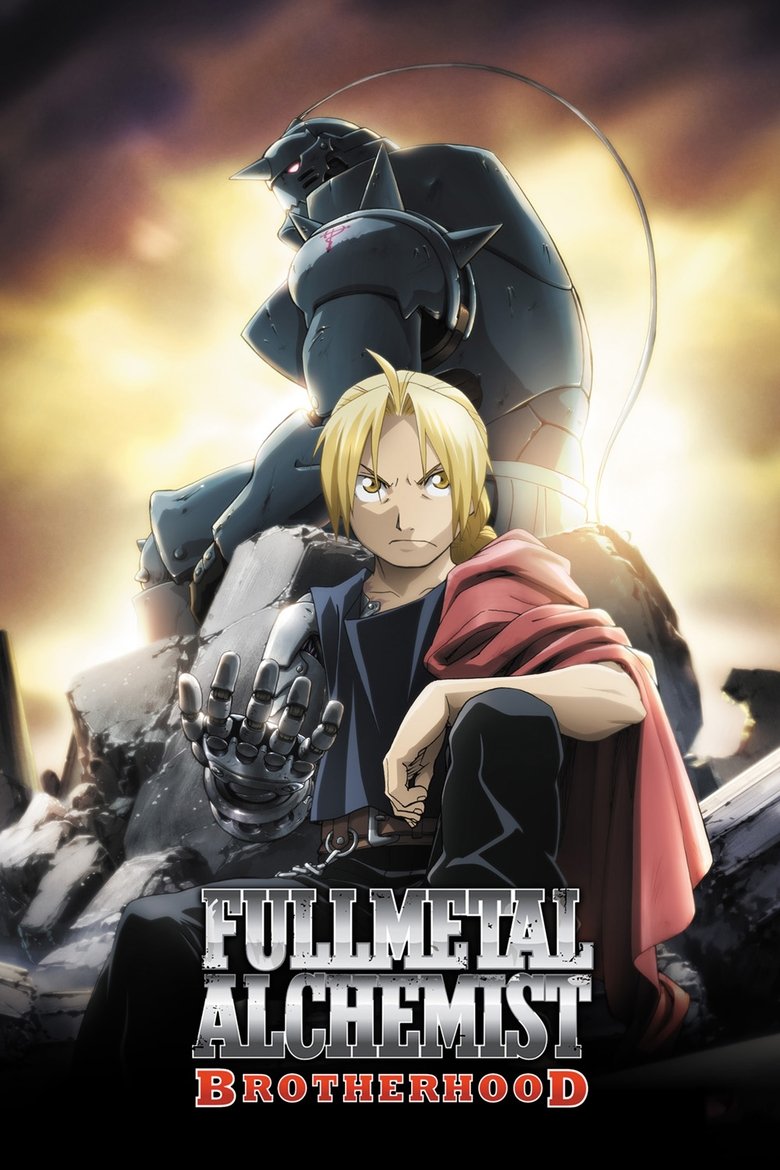
FULLMETAL ALCHEMIST
About the Fullmetal Alchemist font
Fullmetal Alchemist uses an engraved, alchemical serif. Cinzel brings that same transmutation-circle gravitas.
What font is used in the Fullmetal Alchemist logo?+
The original Fullmetal Alchemist logo uses custom lettering. This generator recreates the look with Cinzel — a free, open-license font you can style and download.